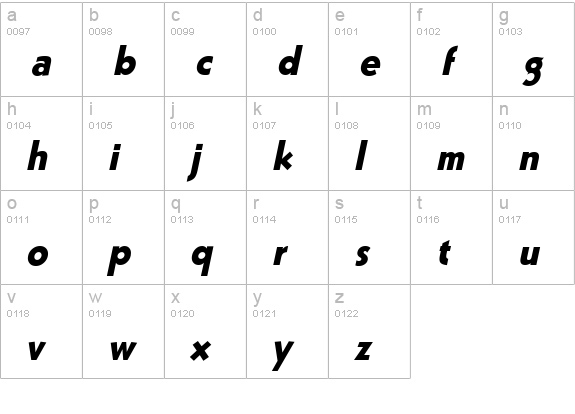
Bully Italic is a distinctive, italic variant in the Bully typeface family \xE2\x80\x94 well suited to design and typography projects.
Bully Italic font is a stylish and modern typeface that exudes confidence and boldness. Its sleek lines and sharp angles give it a strong presence, making it perfect for making a statement in your designs. The italicized version adds a touch of elegance and sophistication, making it versatile for various design projects. What makes Bully Italic font even more appealing is that it is available for free download at FontsMarket.com. This means you can easily access this eye-catching font and use it in your projects without any cost. Whether you're working on branding, advertising, or any other creative endeavor, Bully Italic font is sure to elevate your designs and make them stand out. Download it today and add a touch of flair to your work!